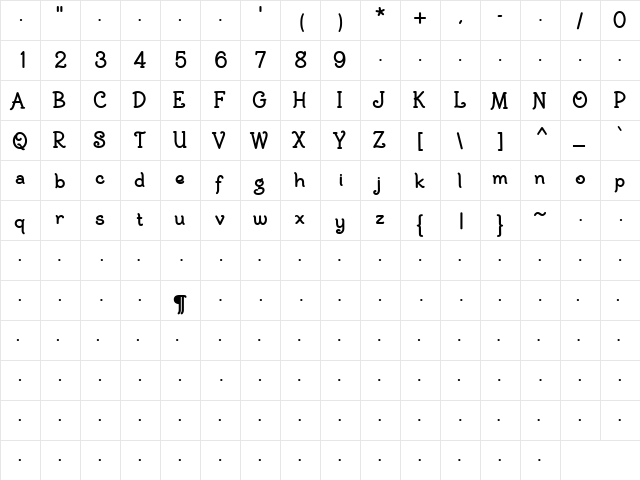
BiracDT Bold
Design Context for BiracDT Typeface
BiracDT offers clean, dependable letterforms without strong stylistic allegiance, making it a practical choice for designers who need flexibility. The heavy weight commands attention and anchors typographic hierarchies.